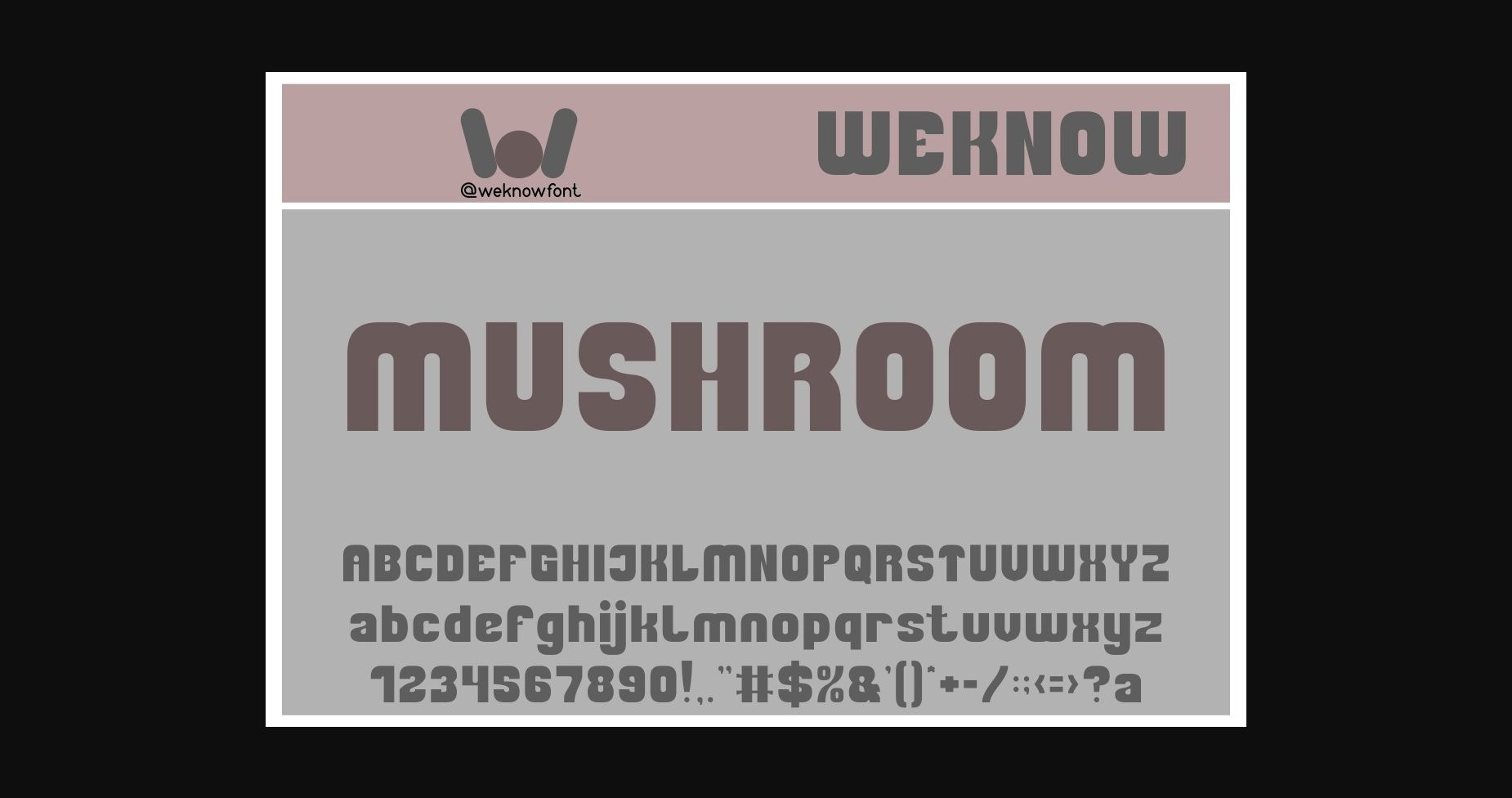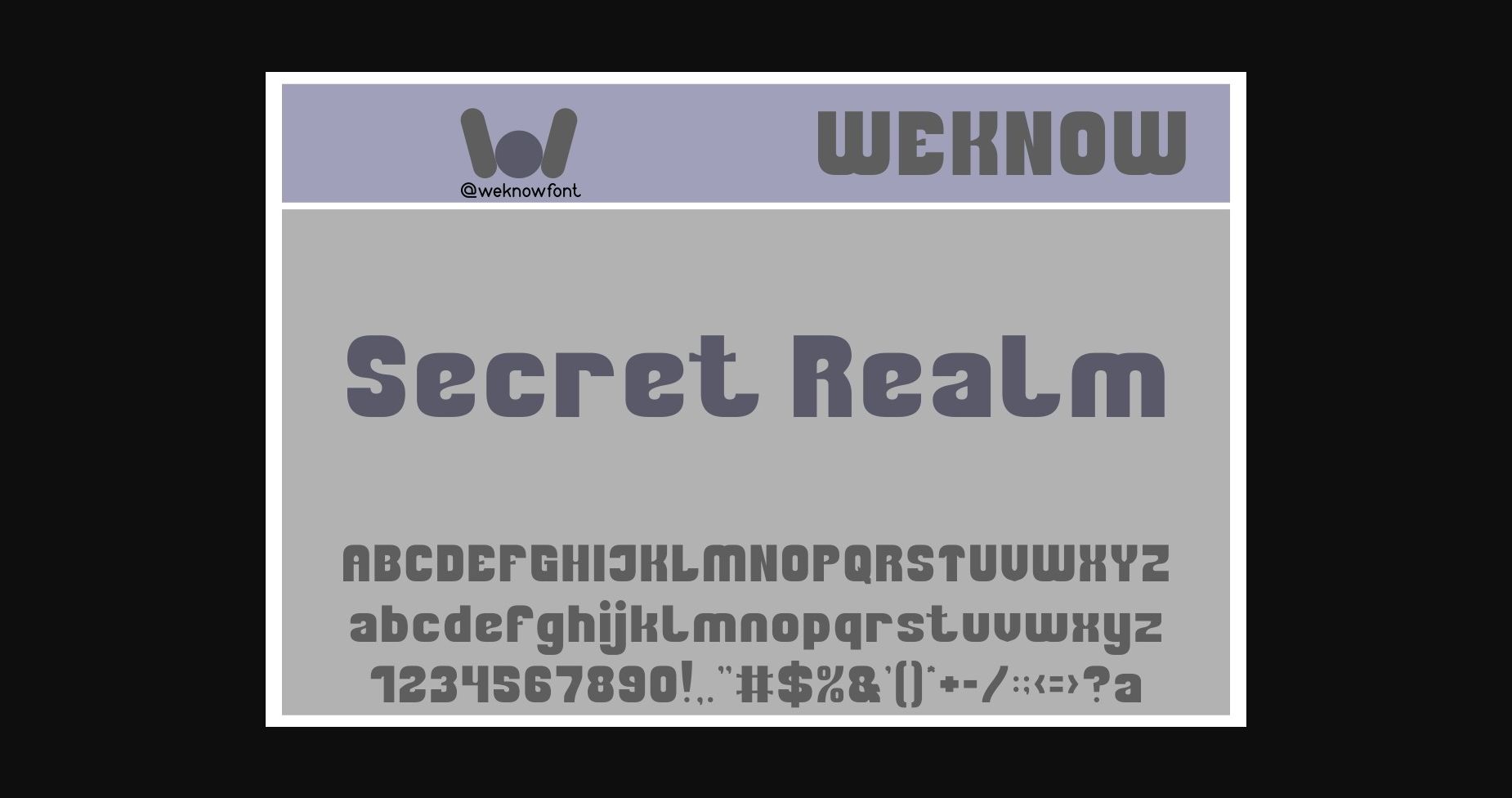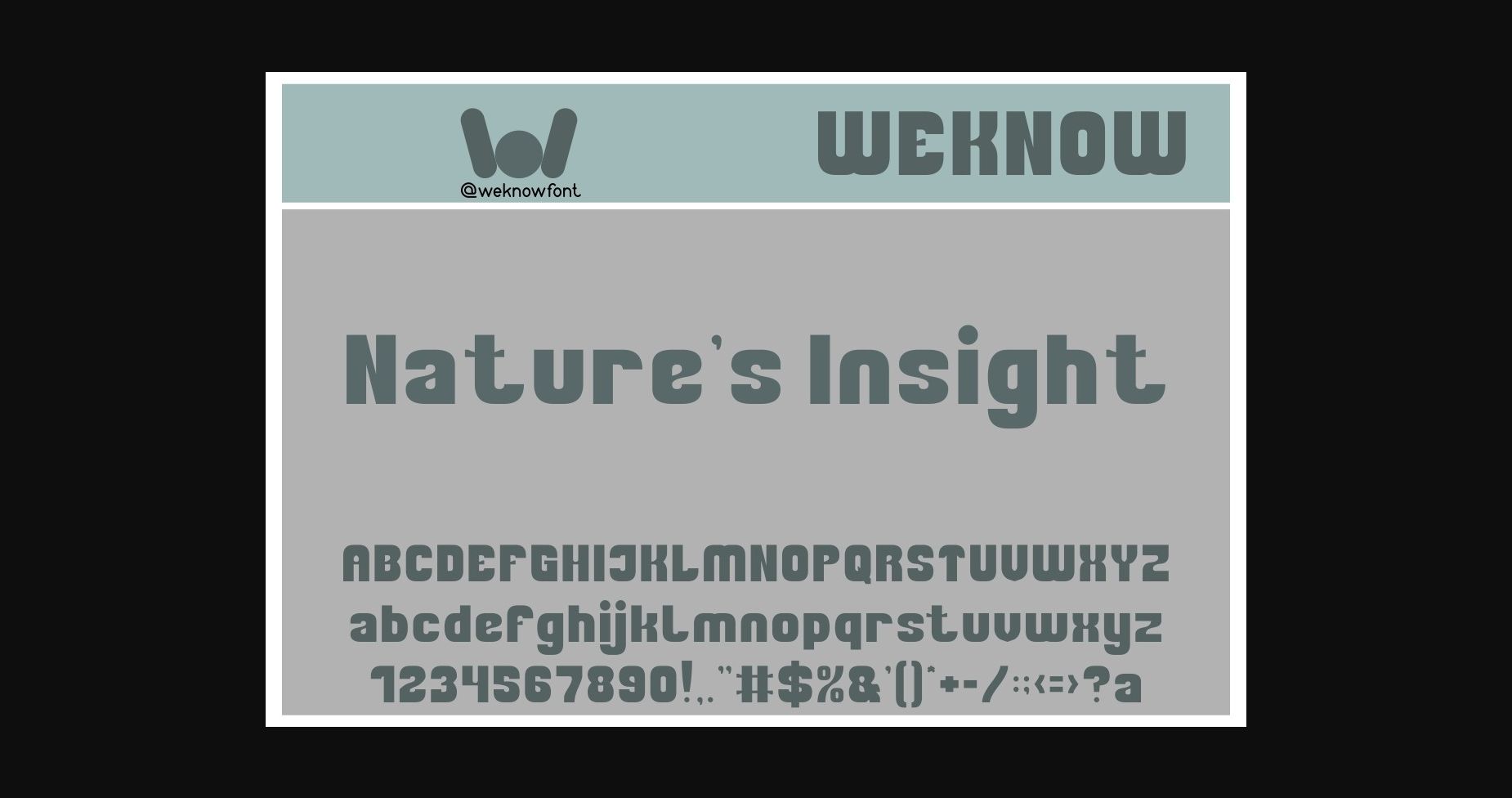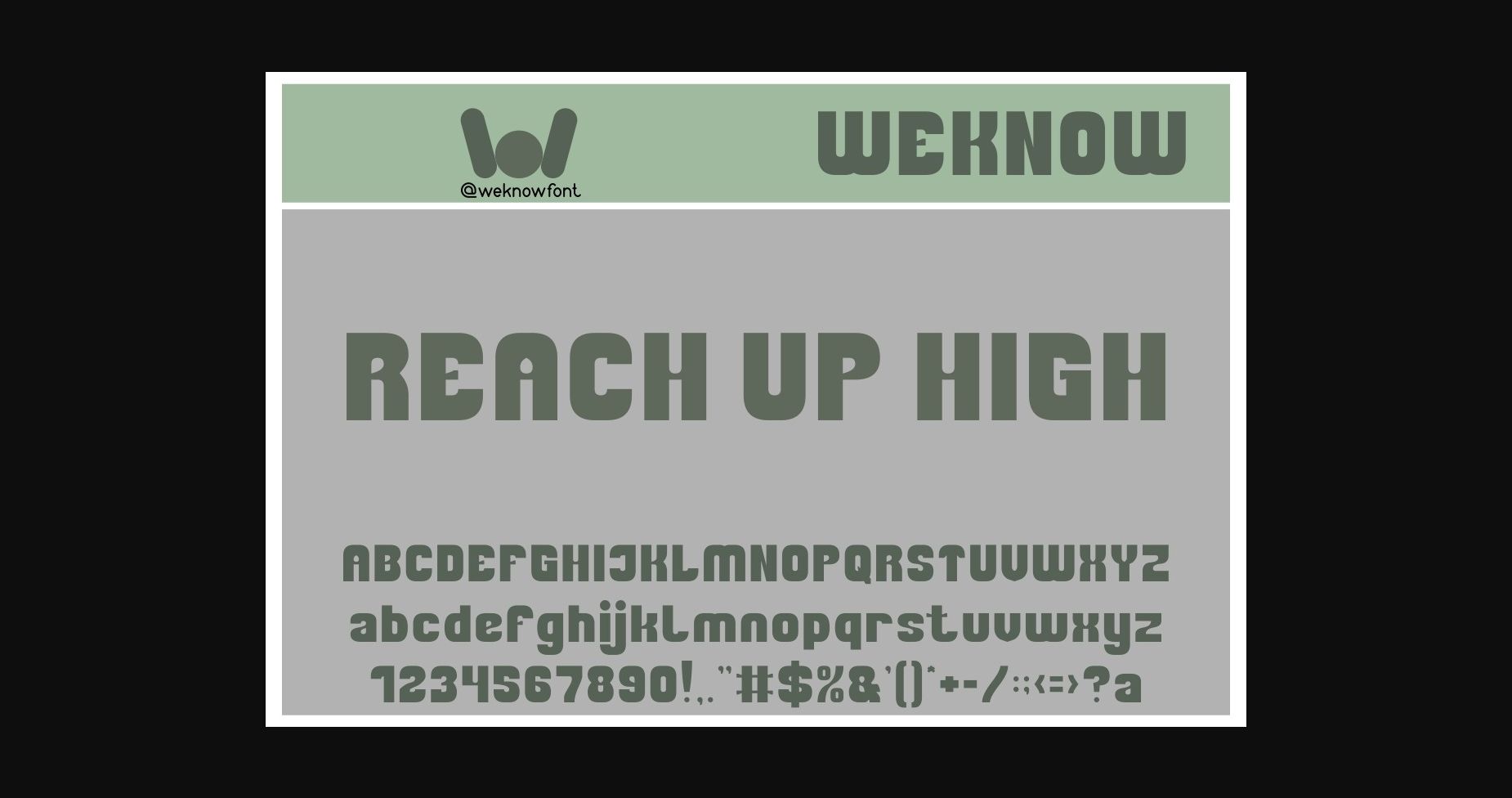
Mushroom is a basic sans-serif, display font suitable for a logos, logotypes, headlines, corporate identity, apparel industries, posters, music, movies, games, magazines, books and so much more of your creative designs.